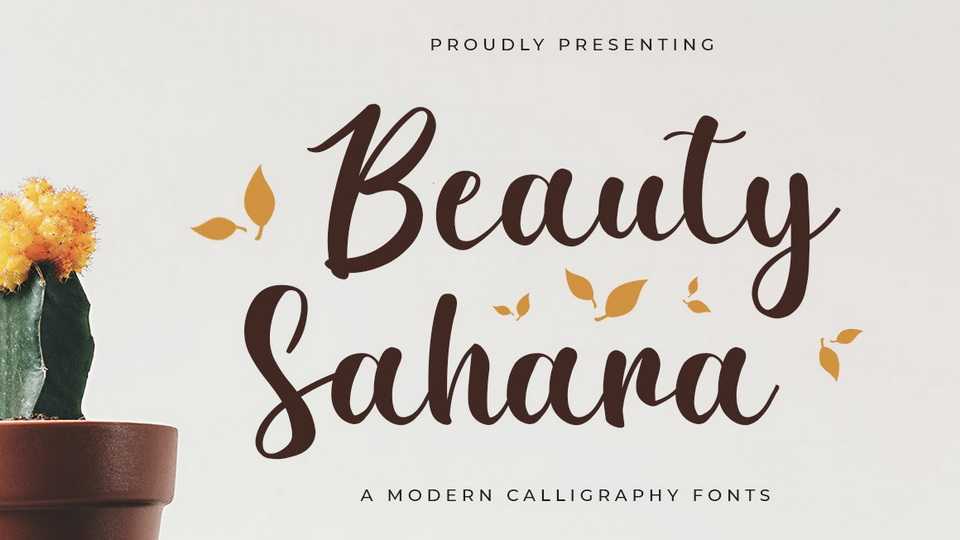
Download Beauty Sahara font, a sweet modern calligraphy typeface with a beauty feel. Beauty Sahara font is perfect for use on branding, fashion, weddings, t-shirt designs, logotype, magazines, quotes, lettering, watermarks, invitations.